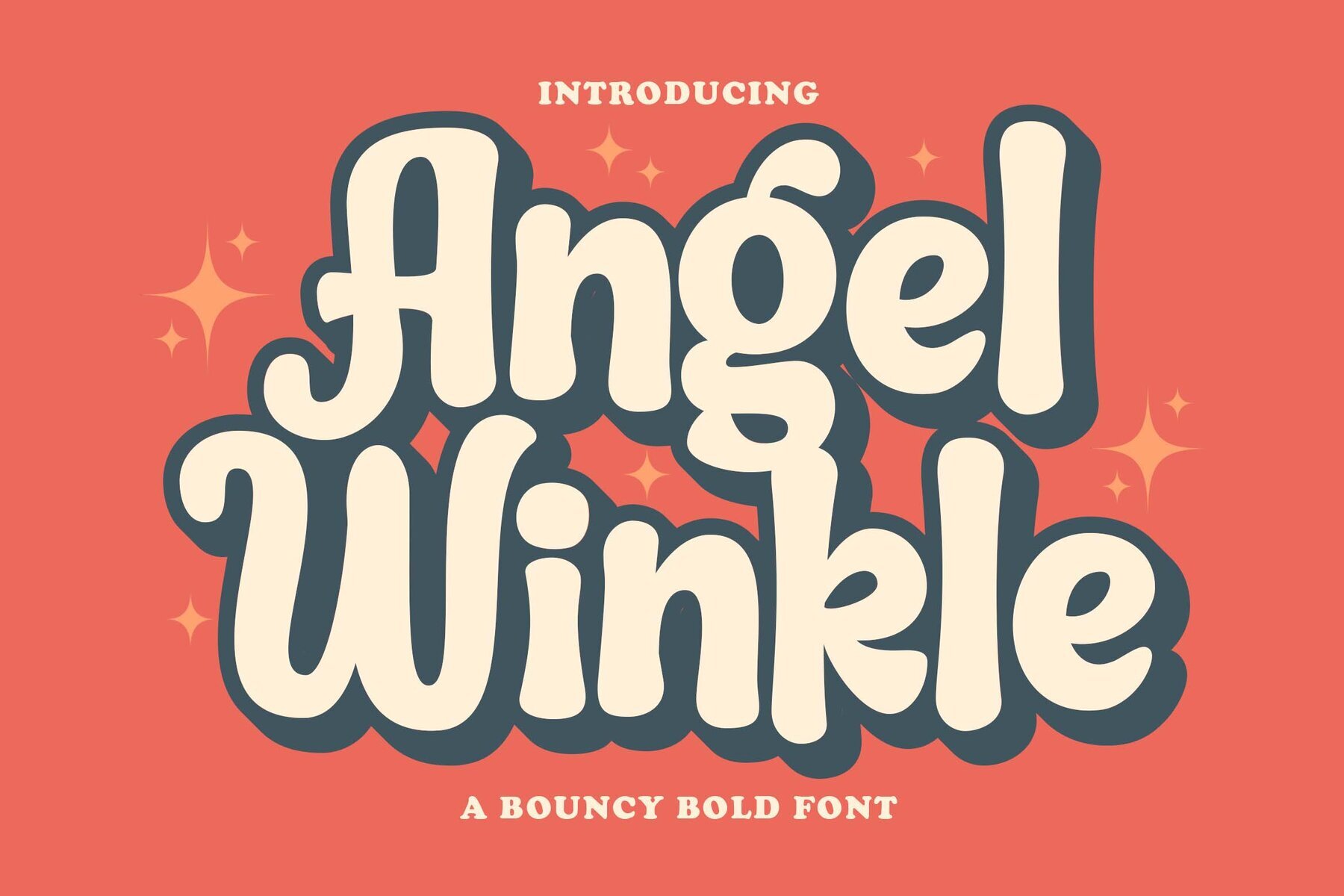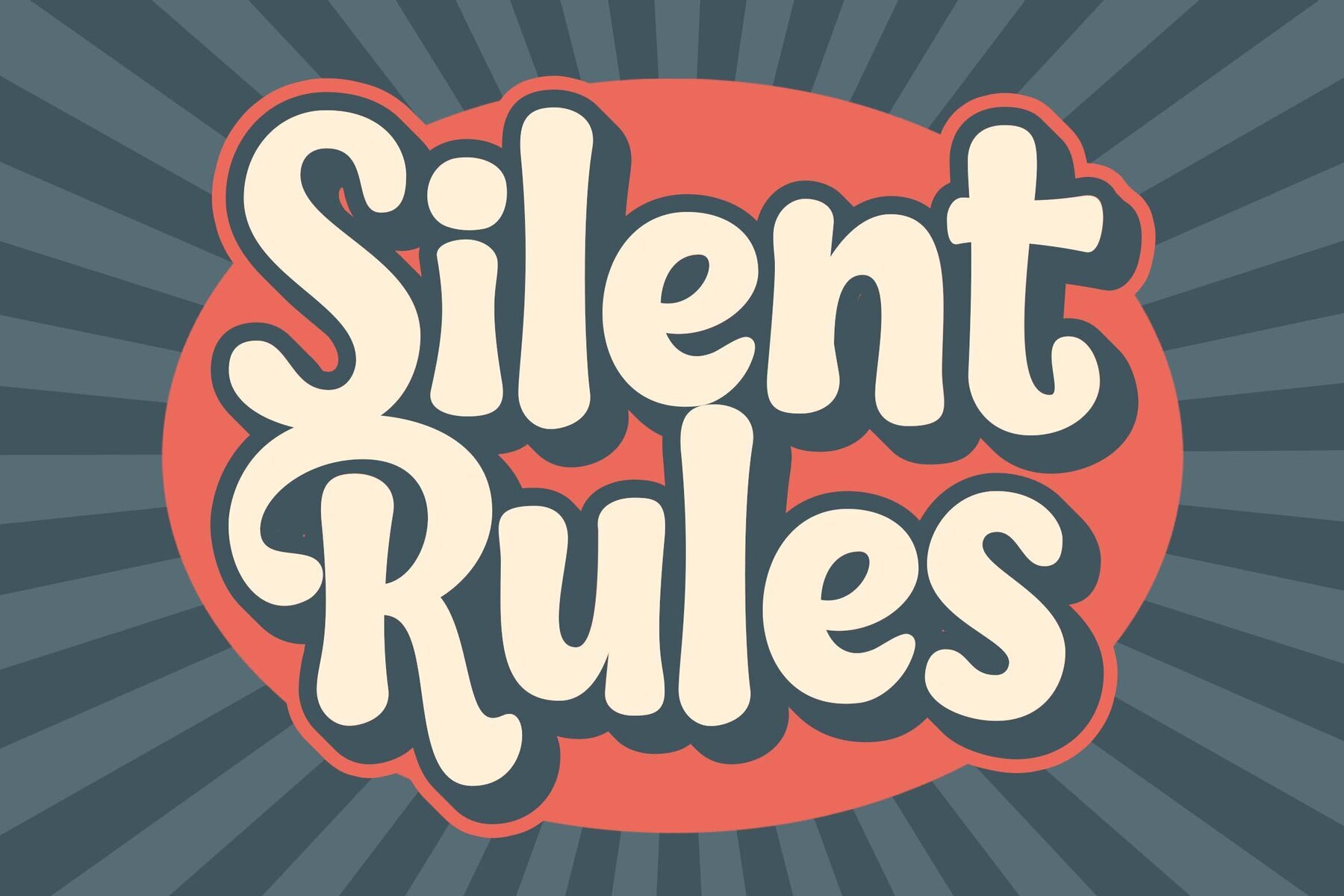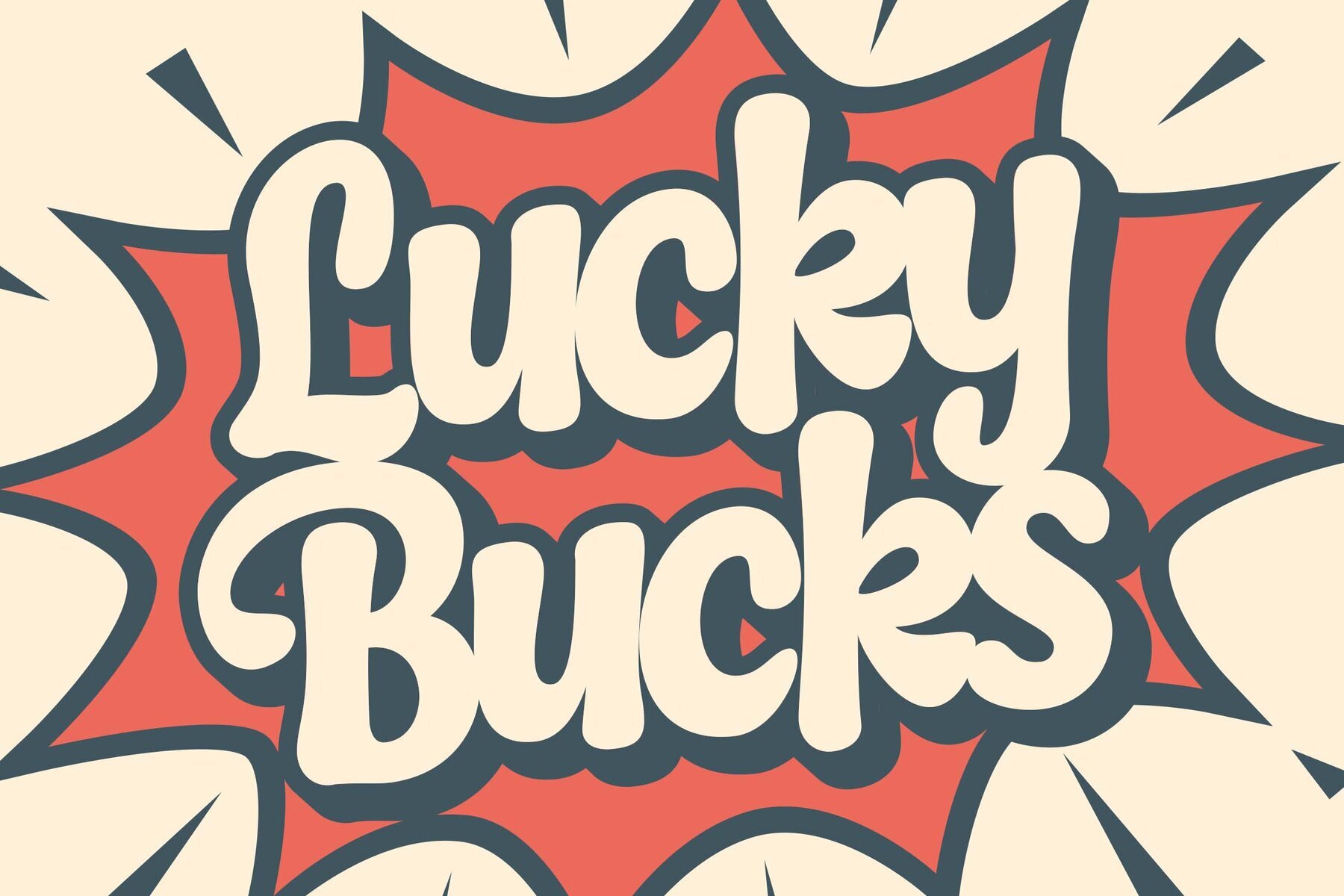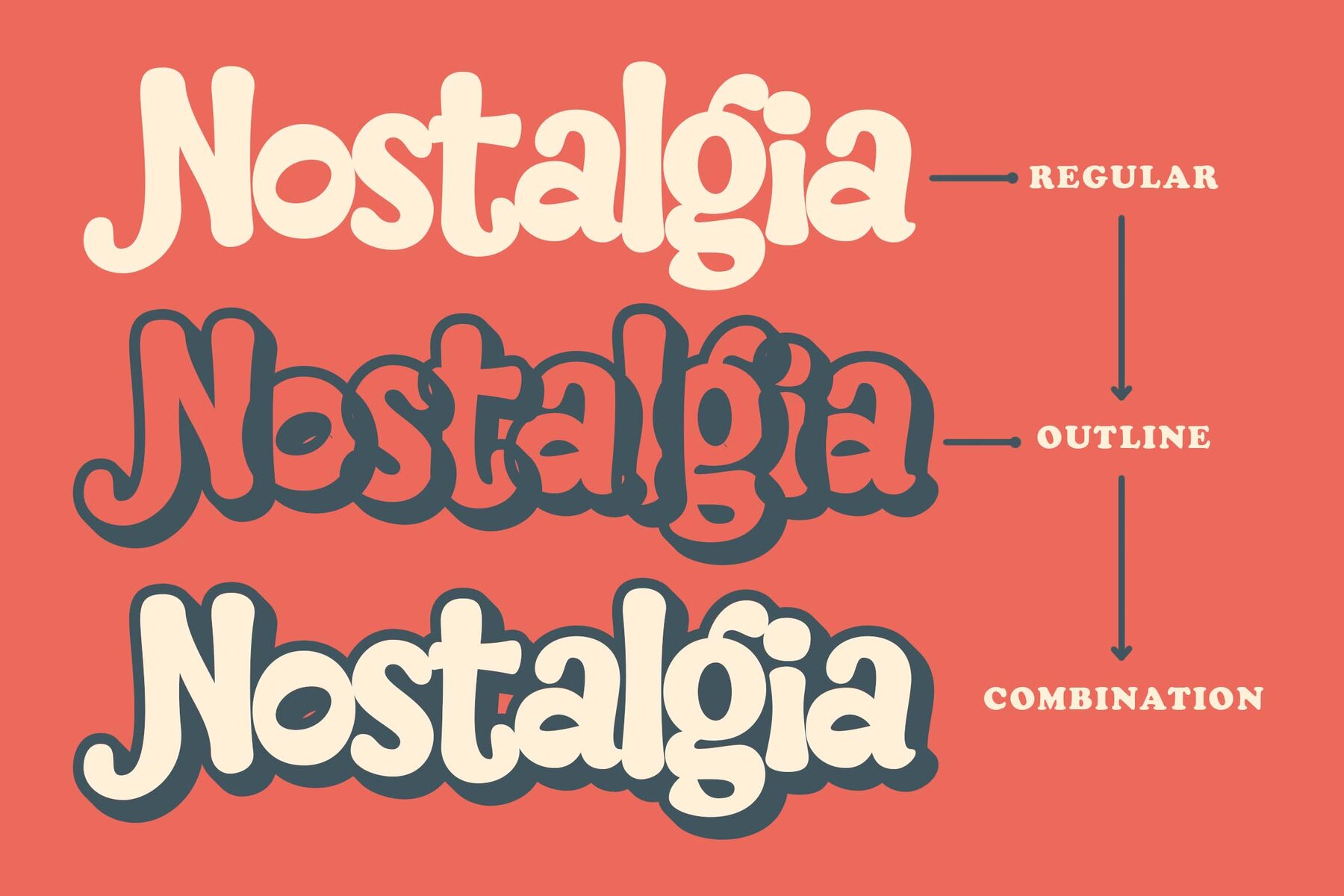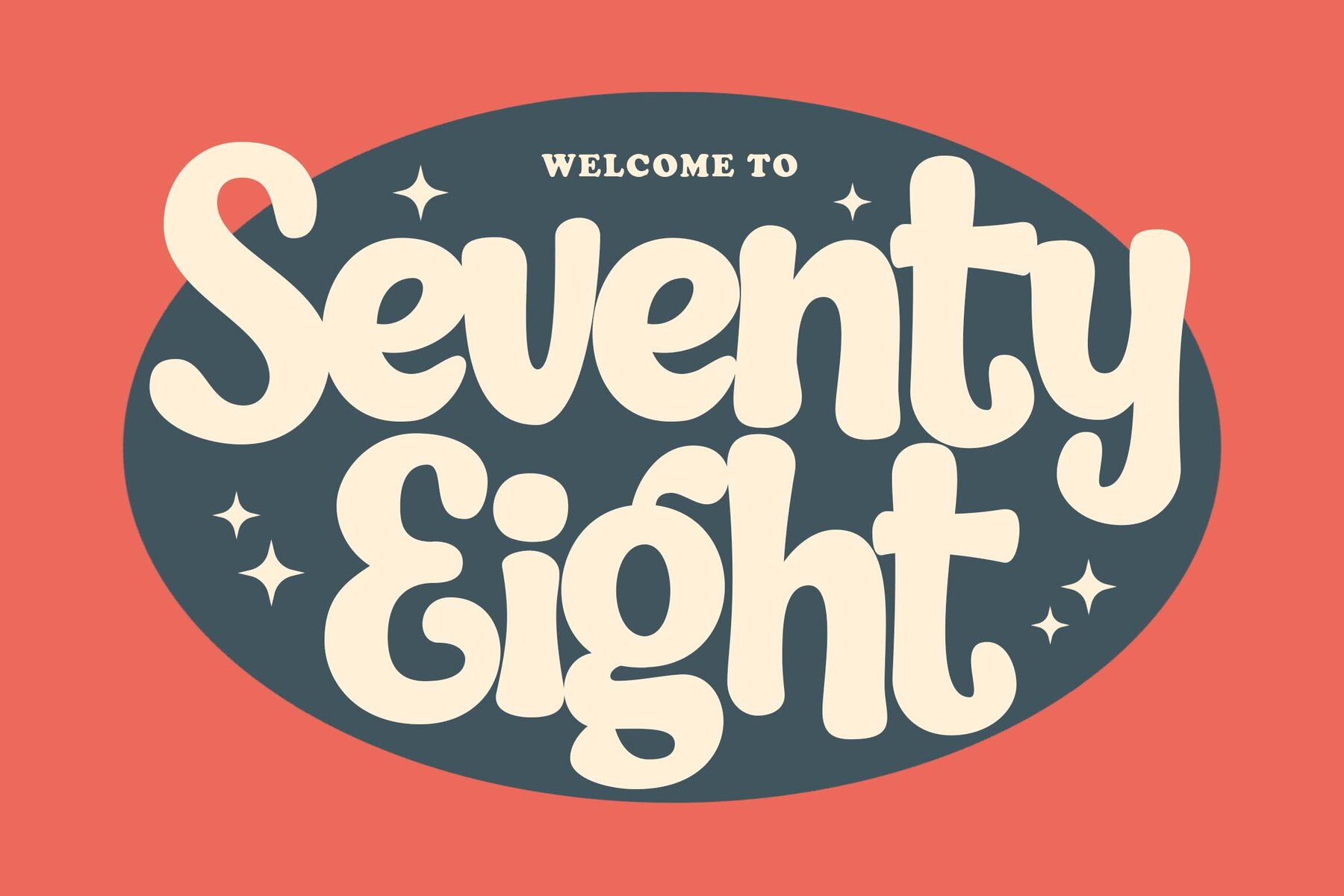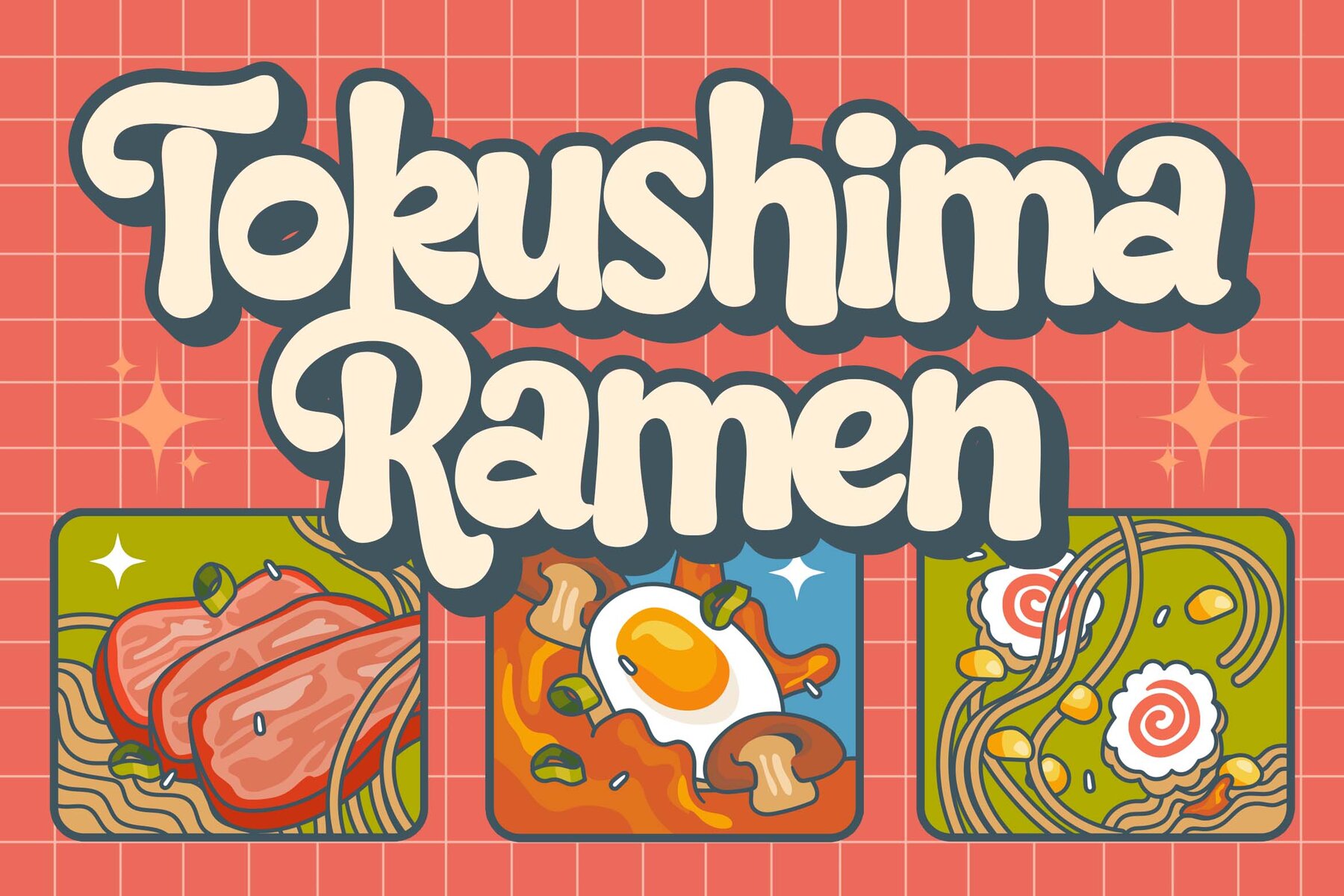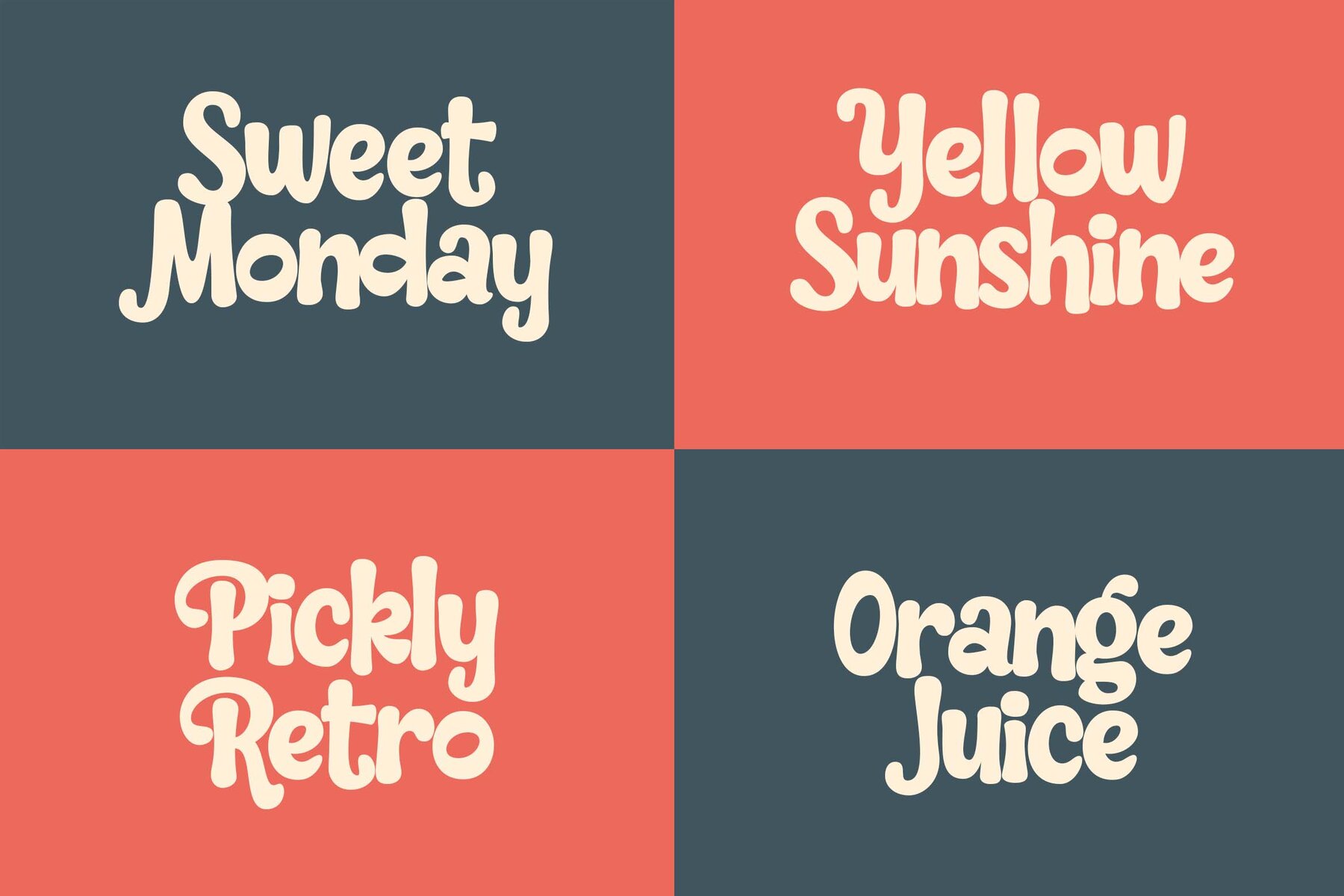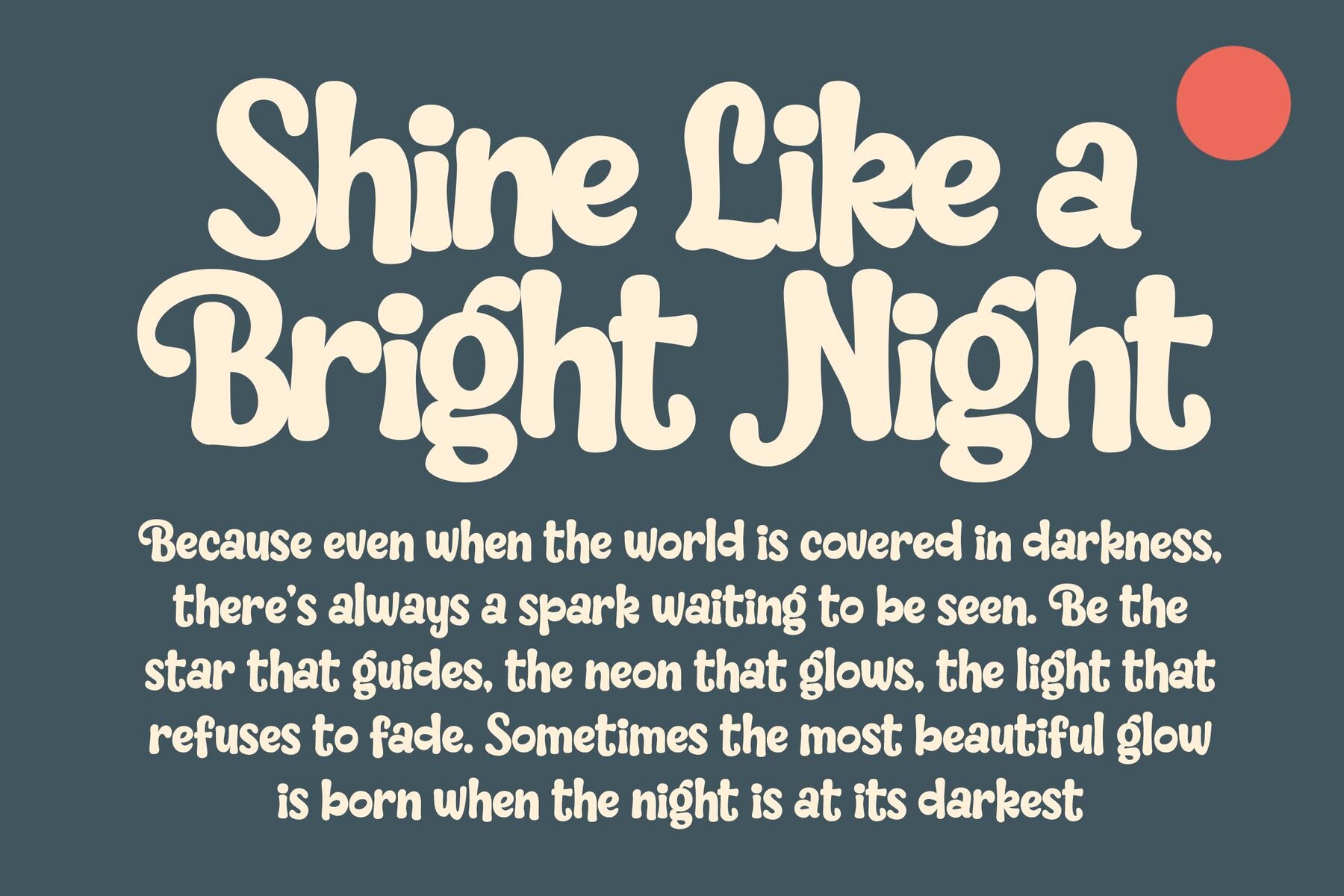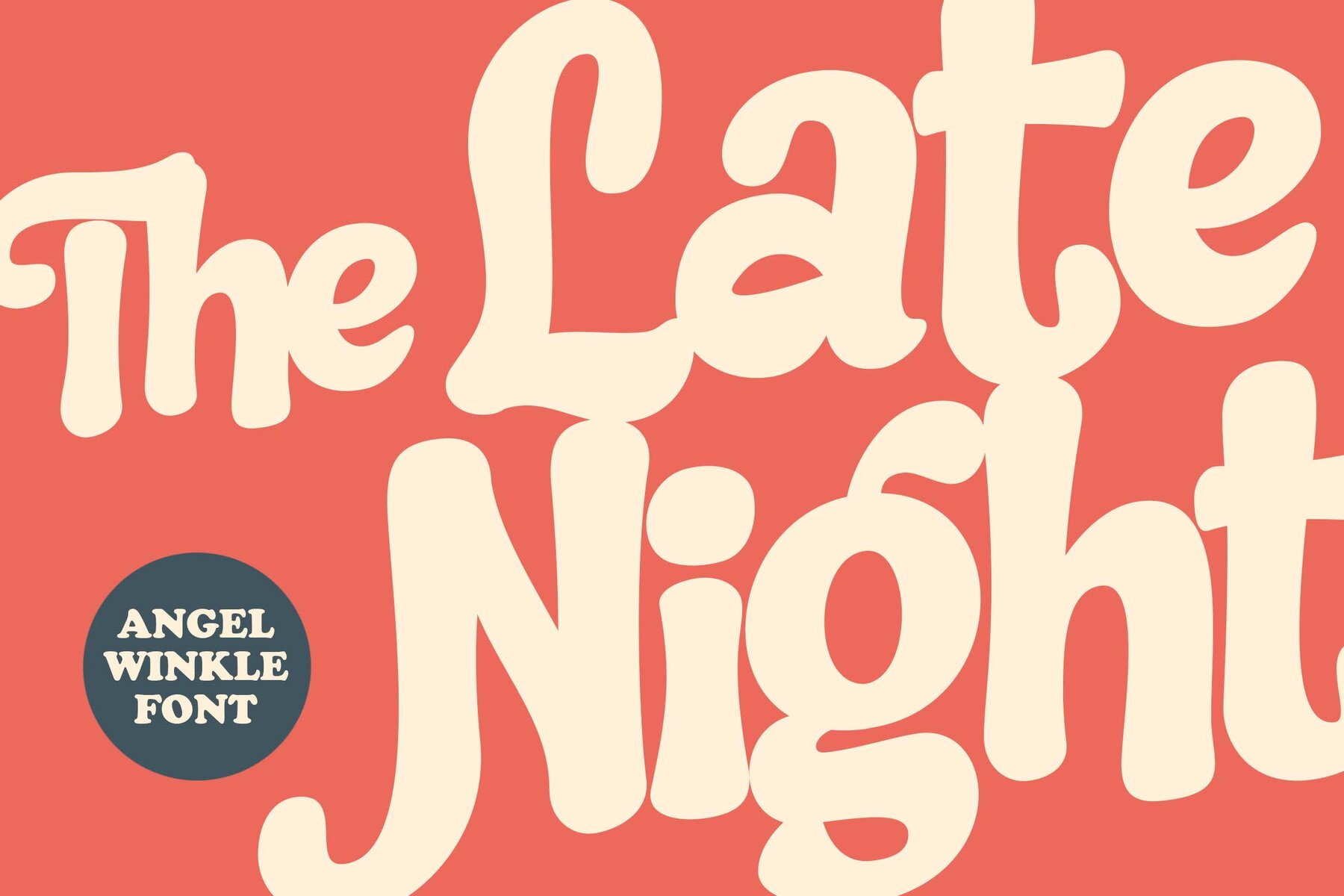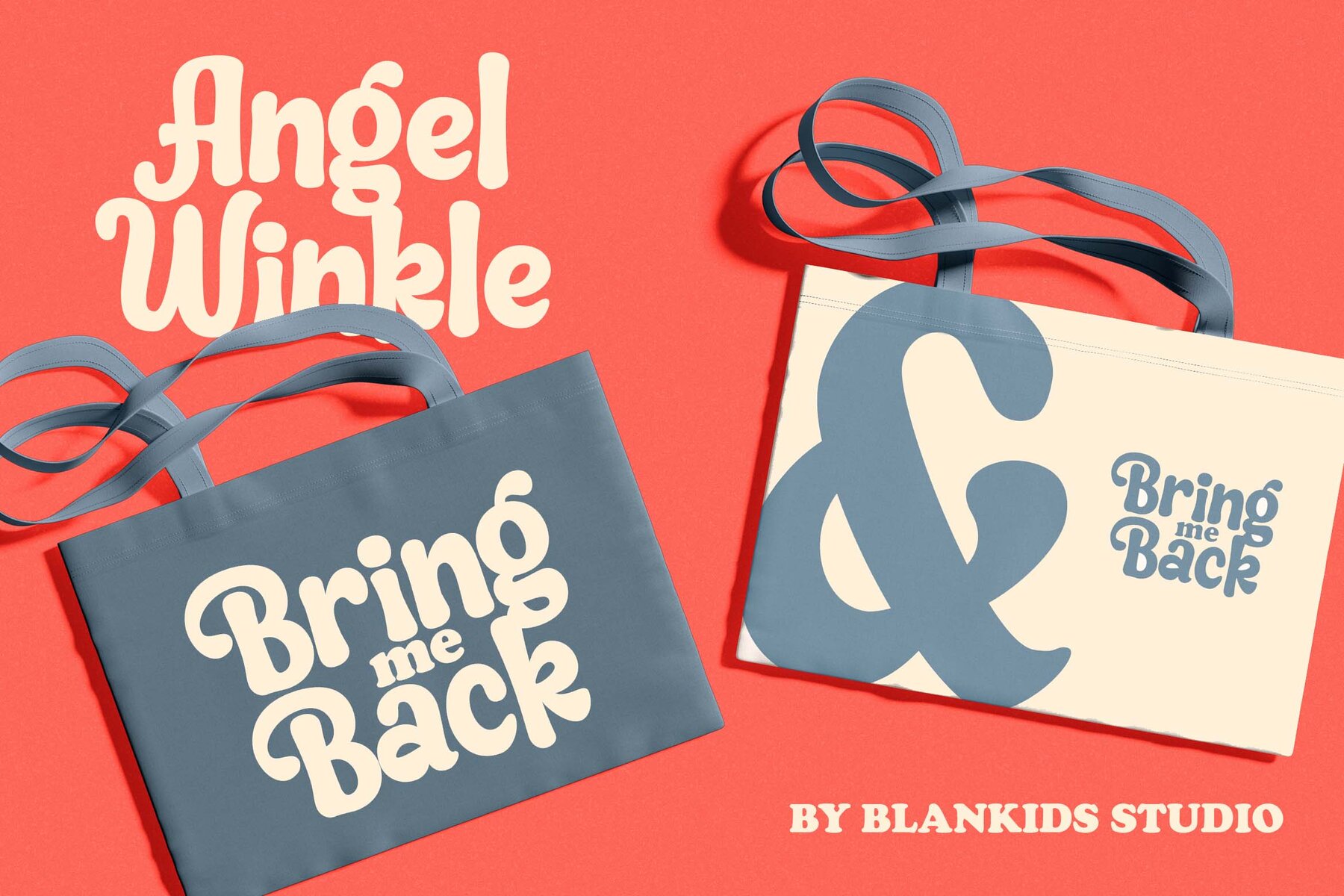
Angel Winkle Font
Angel Winkle Regular
Angel Winkle Outline
Meet Angel Winkle, a vibrant bouncy bold font by Blankids Studio. Perfect for professional branding projects like logos, watermarks, posters, promotions, and product packaging, this font brings every letter to life with a dynamic design. Dive into the creativity with both uppercase and lowercase letters, numerals, and punctuation included. Achieve a striking look across your designs with Angel Winkle's unmistakable charm.Angel Winkle: The Bouncy Bold Font You Need